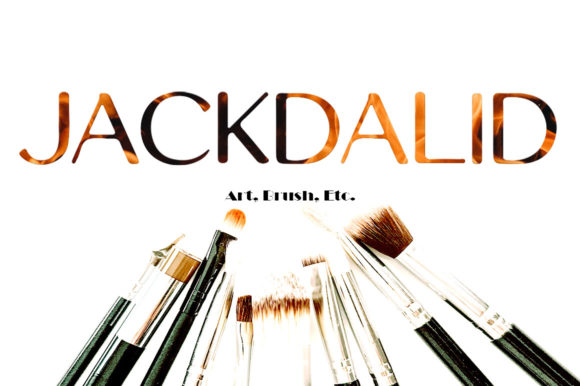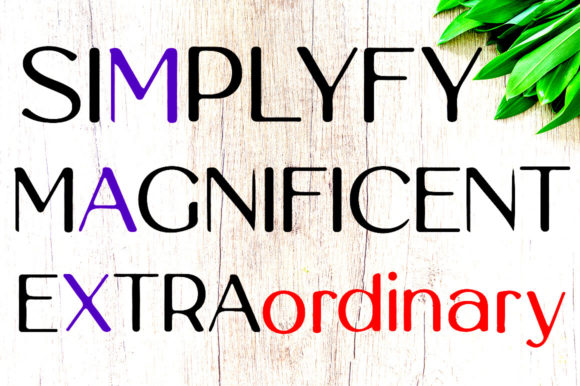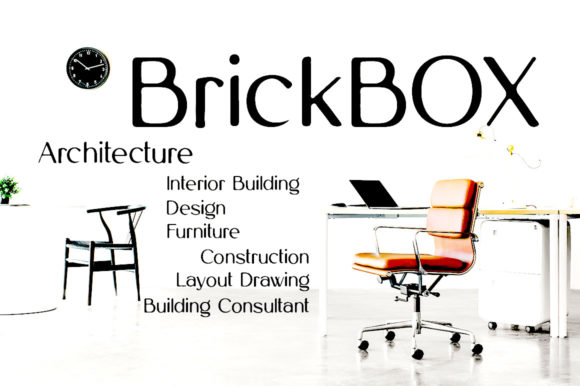
Introduction to Jackdalid Font
Jackdalid is a modern sans serif font capable of adding a little bang and sophistication to your creative work.
It can easily be matched to an incredibly large set of projects, so add it to your creative ideas and notice how it makes them stand out This typeface is perfect for all themes, books market, online games, stationery, movie titles, youtube covers, youtube thumbnails, social media page covers, and more.
Key Features of Jackdalid Font
Why Choose Jackdalid Font?
Jackdalid Font offers exceptional quality and versatility, making it a valuable addition to your design toolkit. Whether you’re creating for personal projects or commercial use, Jackdalid Font delivers professional results.